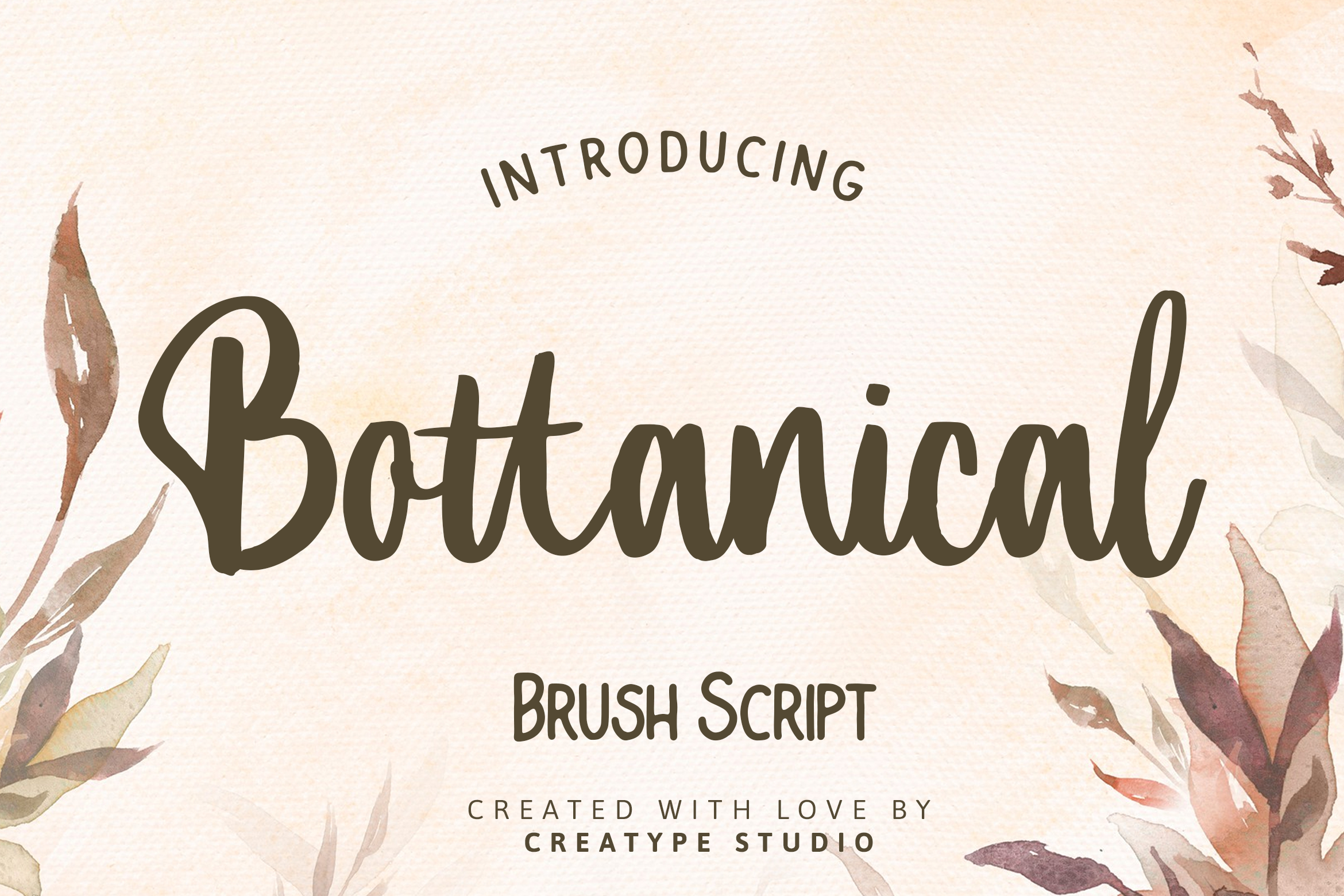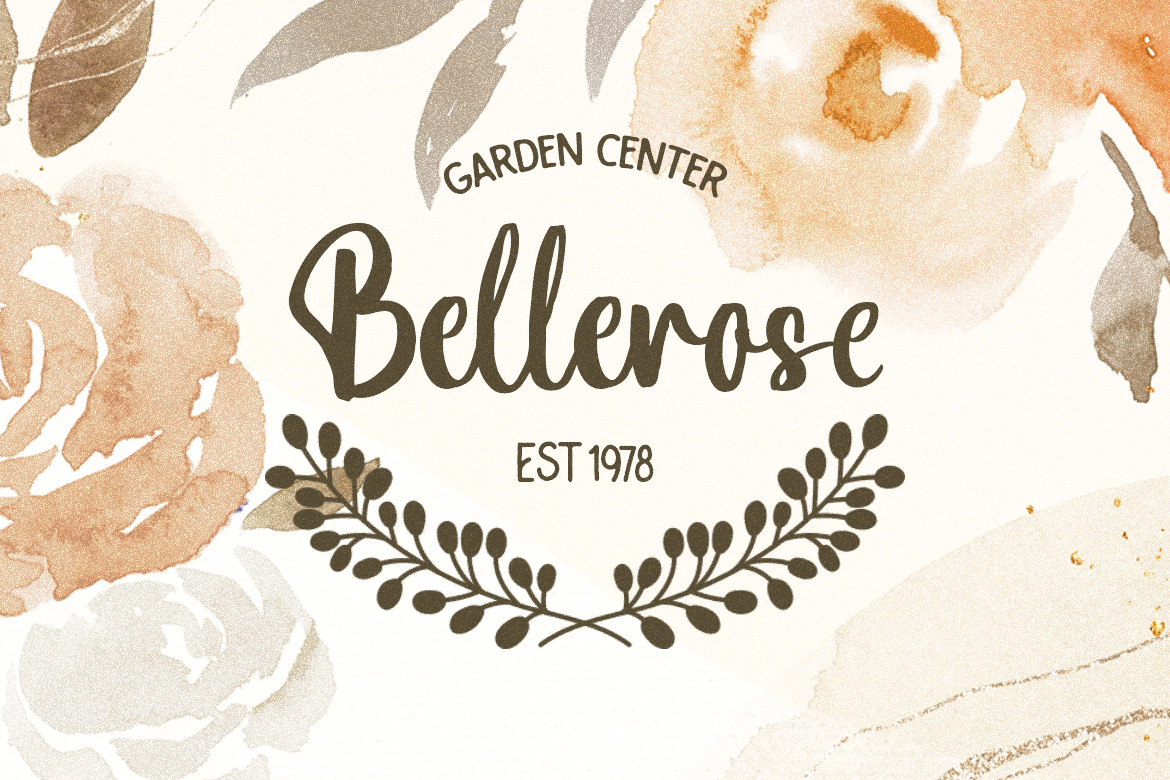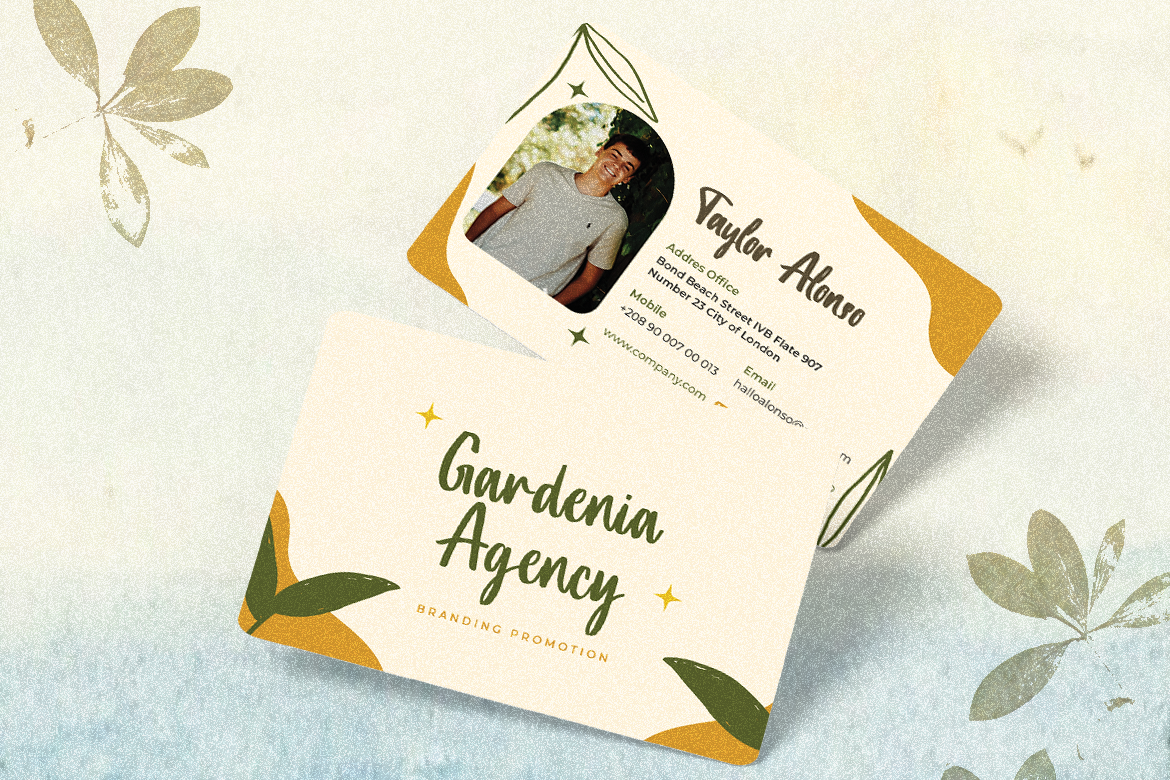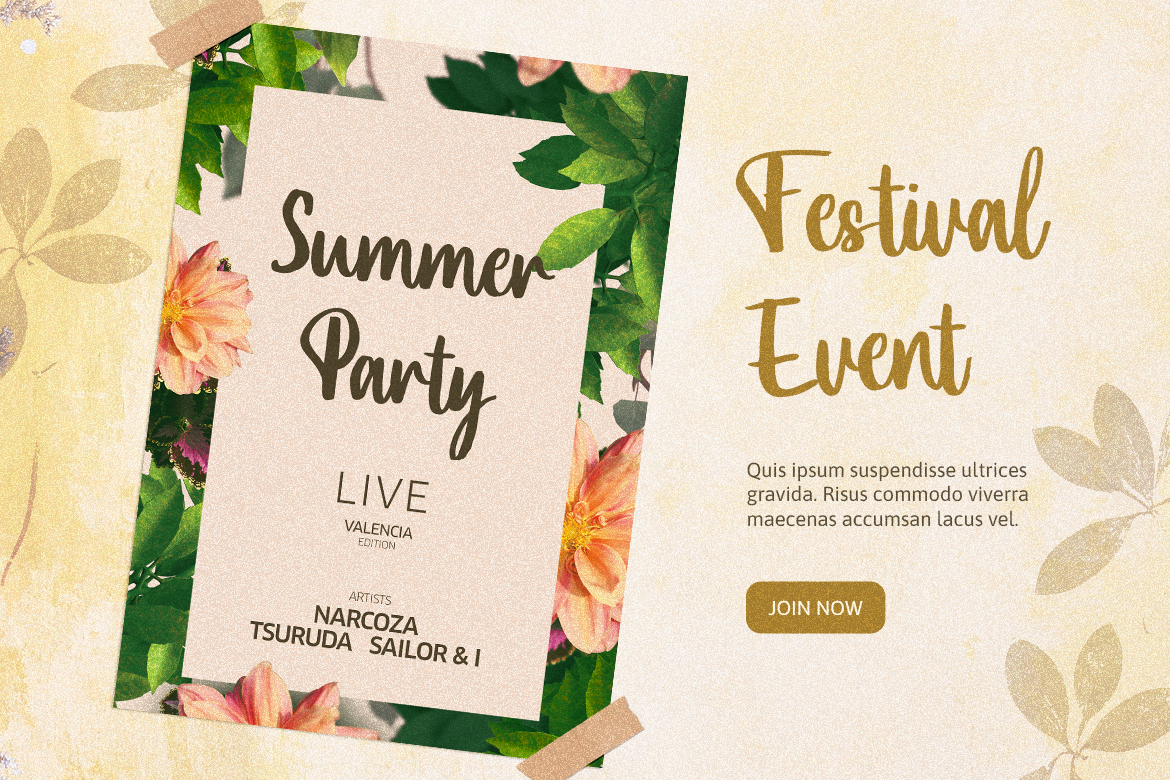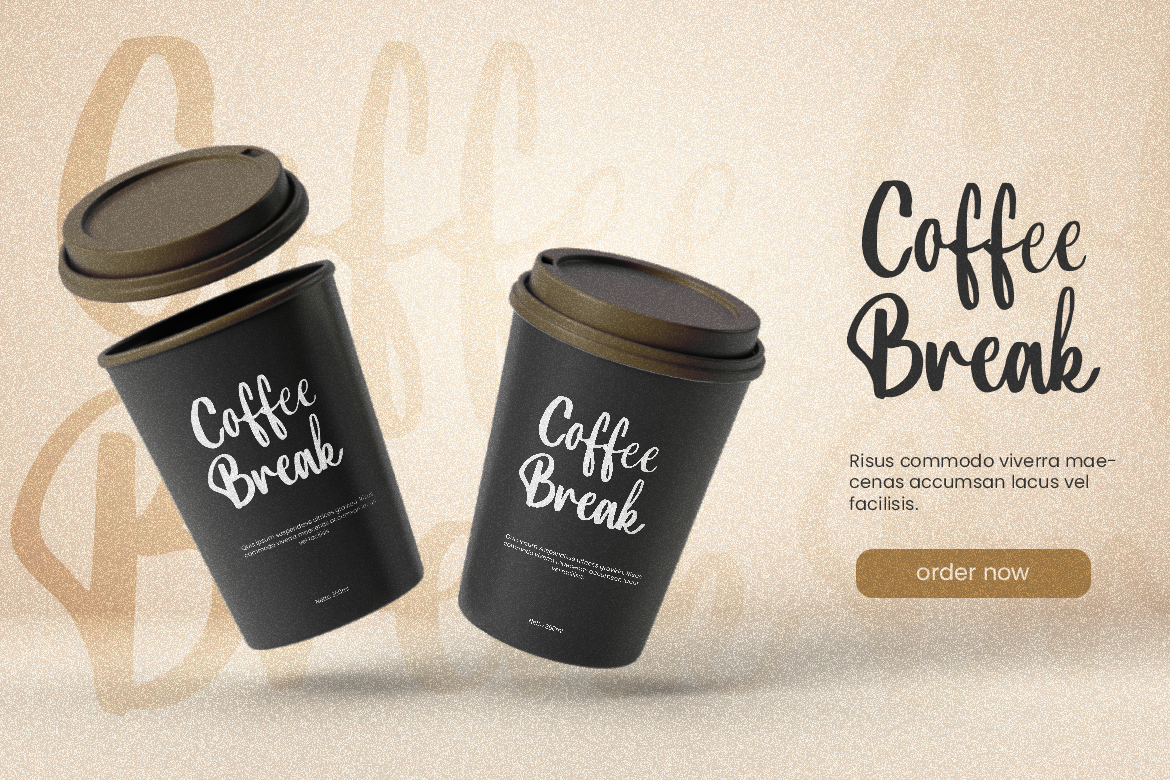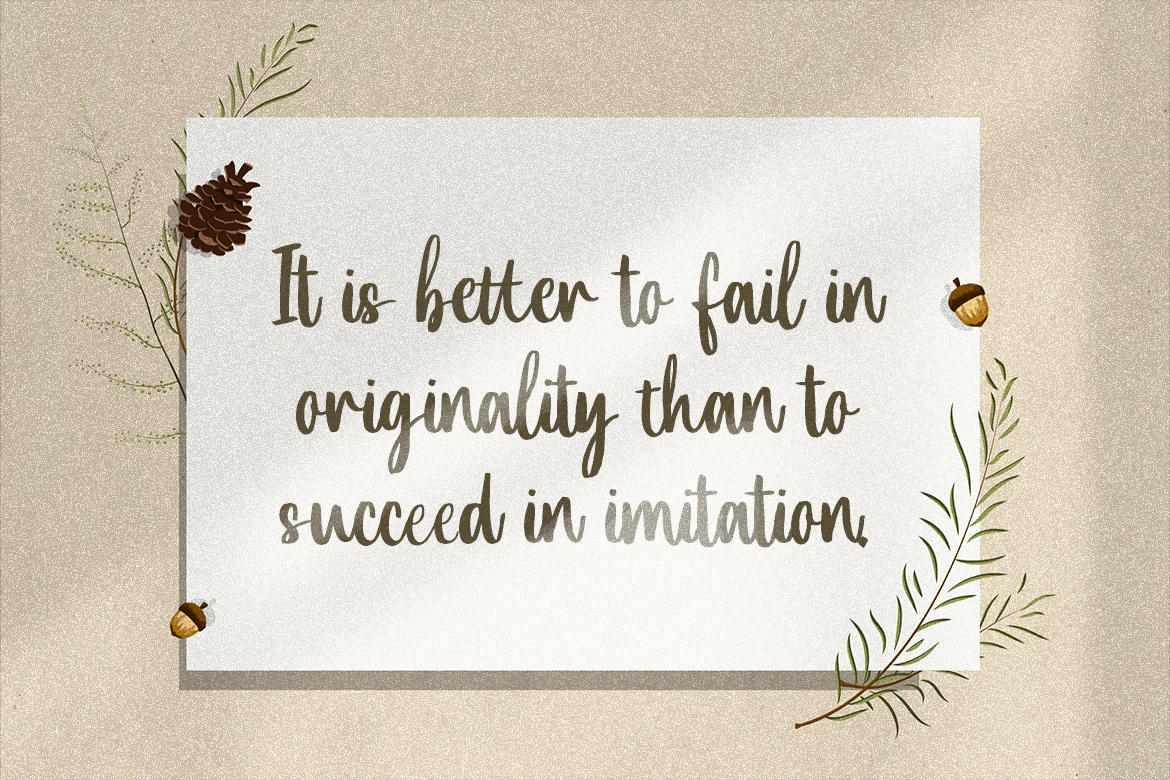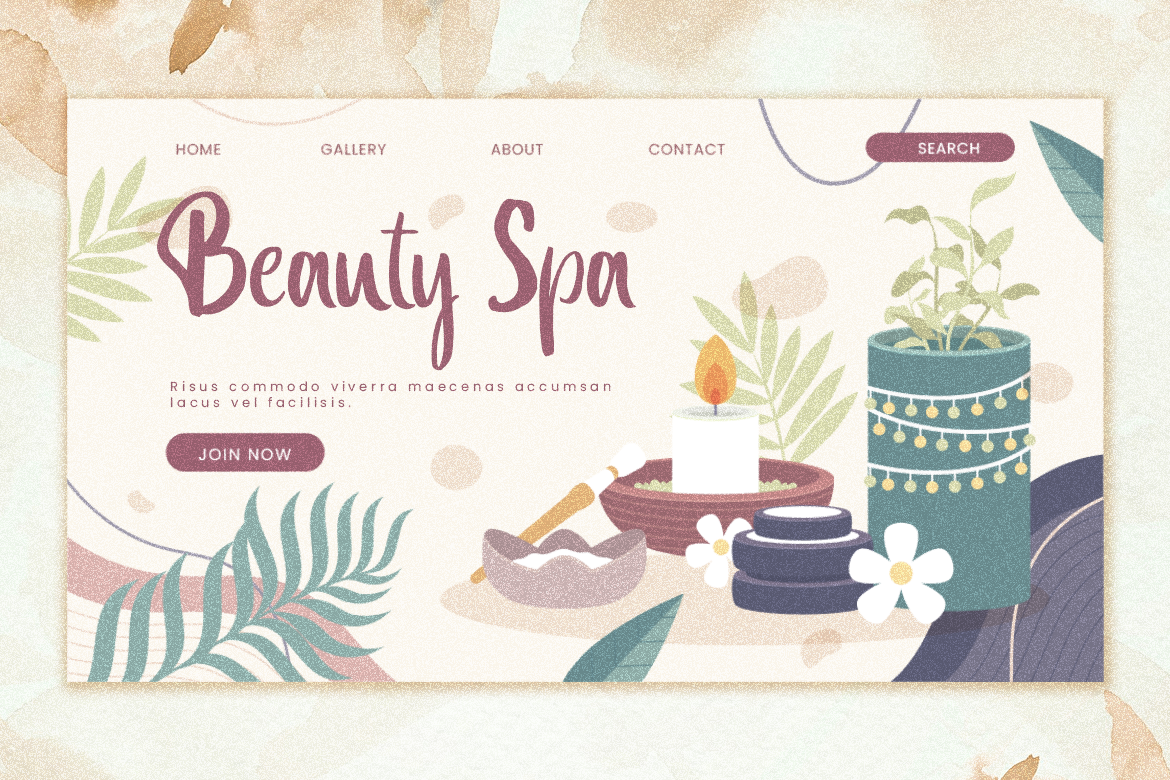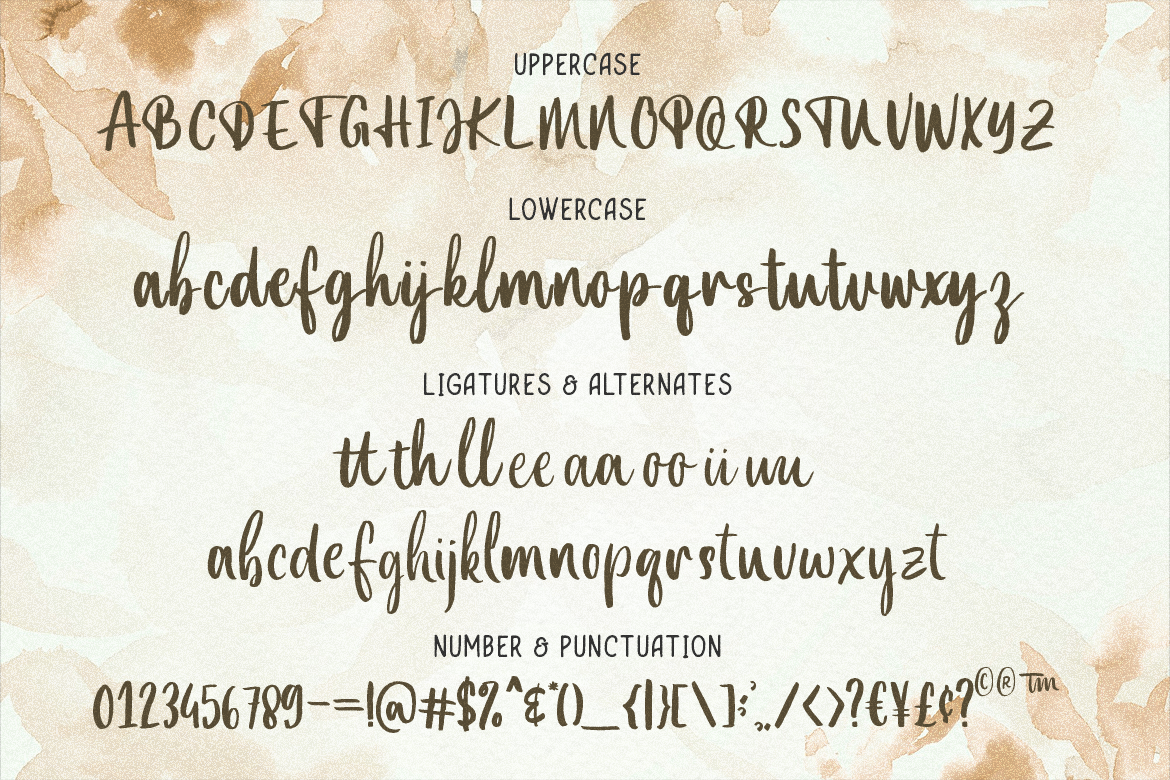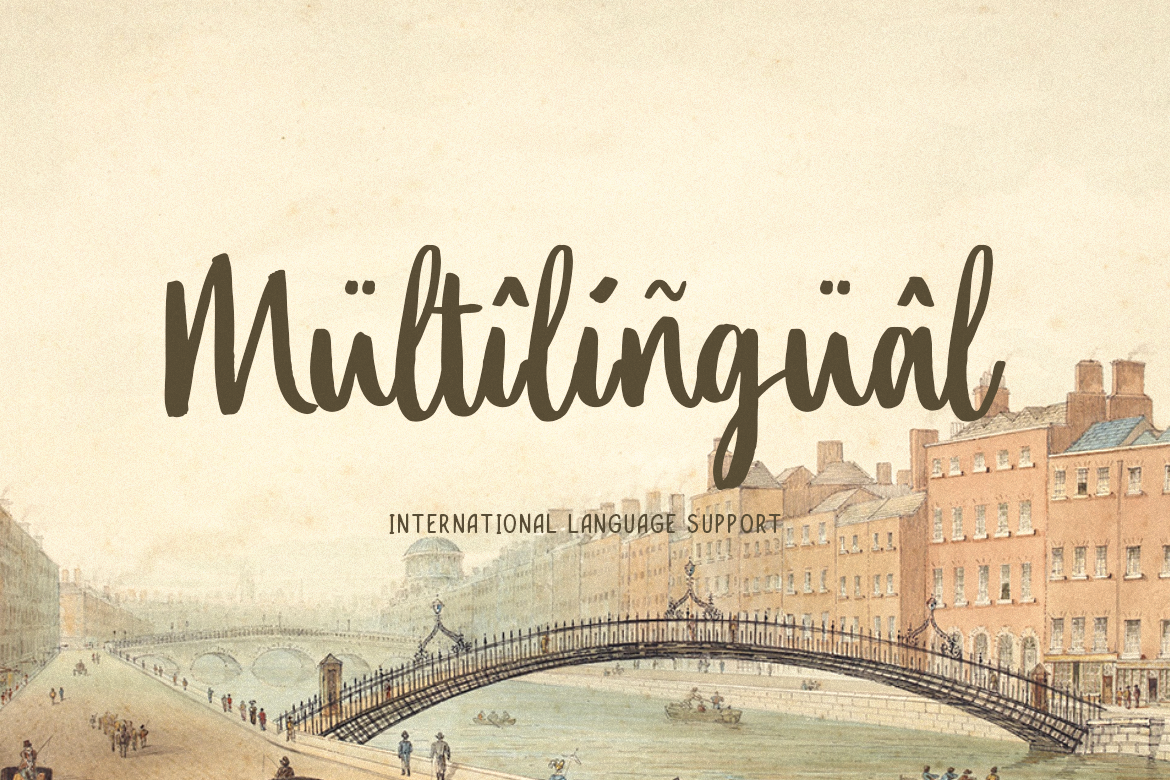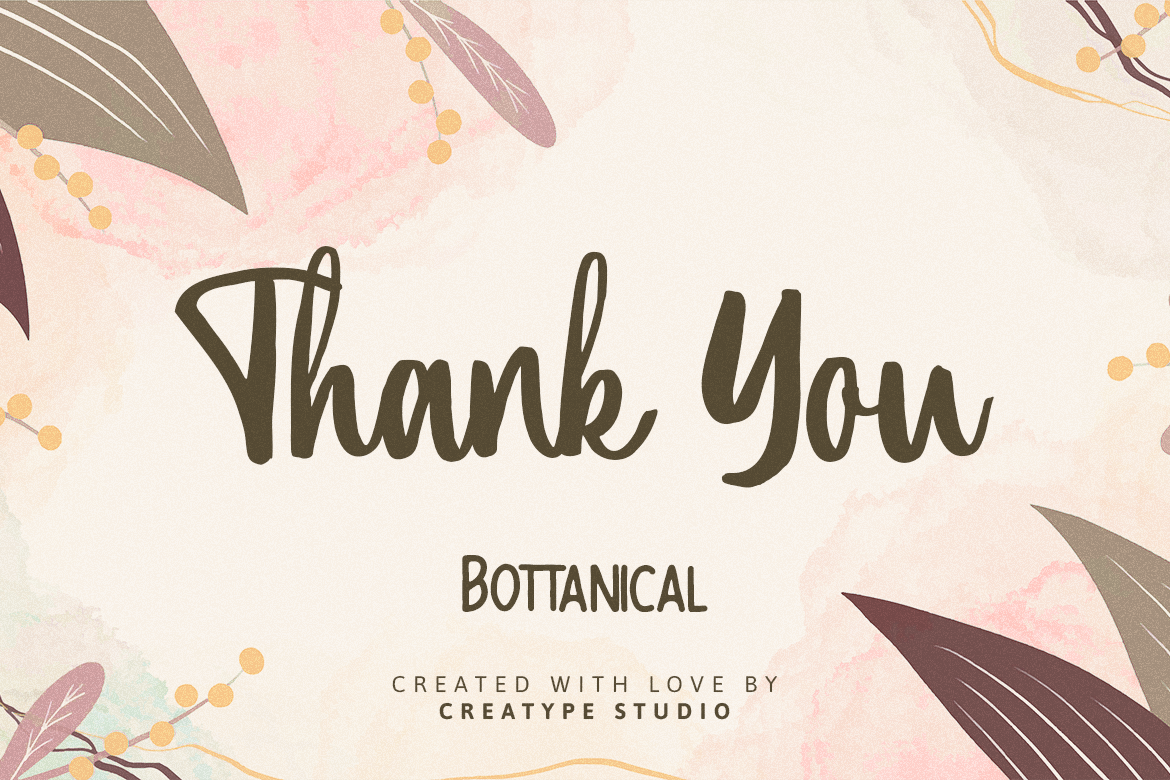
Bottanical Brush Script
Bottanical is an attractive brush-style typeface that has a natural vibe. Giving a touch of versatility to your projects.
Bottanical is perfect for branding projects, logo, wedding designs, social media posts, advertisements, product packaging, product designs, label, photography, watermark, invitation, stationery and any projects that need handwriting taste.